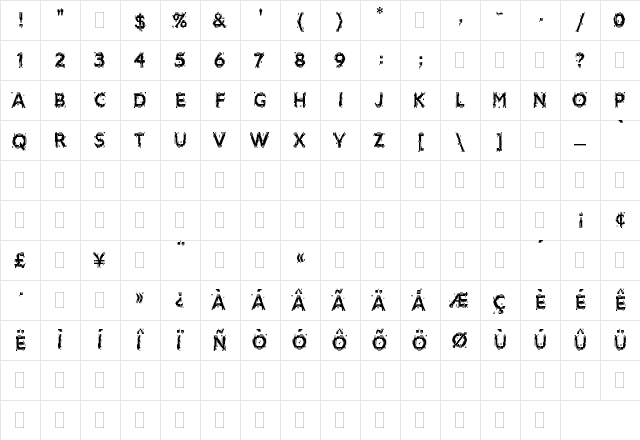
Bitmax Plain
Design Context for Bitmax Typeface
Bitmax is a composed and adaptable typeface that performs quietly and consistently across a wide range of design contexts.